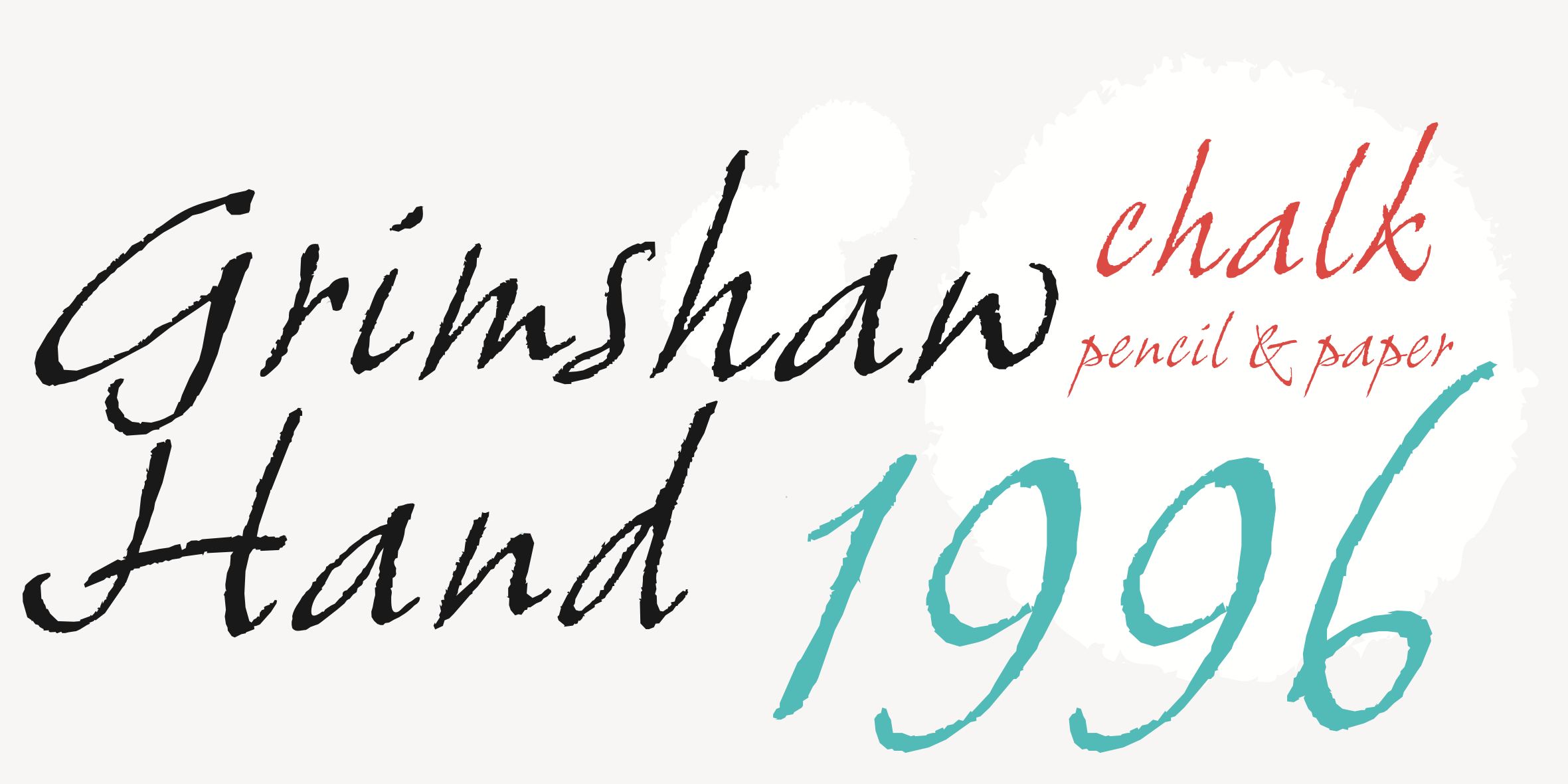
ITC Grimshaw Hand Font is ideal for personal journal designs, handwritten invitation cards, artisan boutique signage, intimate café branding, creative writing workshops, personal letter templates, handmade craft labels, artistic greeting cards, personal blog headers, creative portfolio materials, handwritten quote designs, and authentic personal communications. This expressive typeface brings genuine handwriting charm to projects requiring personal touch and authentic human connection.
What makes ITC Grimshaw Hand Font so exciting is its remarkable ability to capture the intimate warmth and personal character of genuine handwriting through naturally flowing letterforms that feel like authentic pen strokes from a thoughtful correspondent. The font features organically crafted characters with natural variations and personal quirks that mirror the unique personality and human touch found in real handwritten communication. Its personal character conveys authenticity and warmth while maintaining excellent readability, making it perfect for brands seeking to communicate genuine human connection, personal care, and the irreplaceable value of handwritten expression with authentic handwriting appeal.
The ITC Grimshaw Hand Font family includes multiple personal weights and handwriting-inspired variations that showcase its authentic character while providing comprehensive design flexibility for various personal and intimate applications. Each variant maintains the original's handwritten authenticity while offering extensive options for creating meaningful typographic compositions that celebrate personal expression and human connection.
Whether you're developing personal brand identities, creating intimate marketing materials, or designing handwritten communications, ITC Grimshaw Hand Font Free Download offers the perfect combination of handwriting authenticity and contemporary functionality. This exceptional typeface brings genuine personal touch to design projects, making it an indispensable choice for designers seeking typography that effectively communicates human warmth, personal connection, and the timeless appeal of authentic handwritten expression with genuine handwriting sophistication.